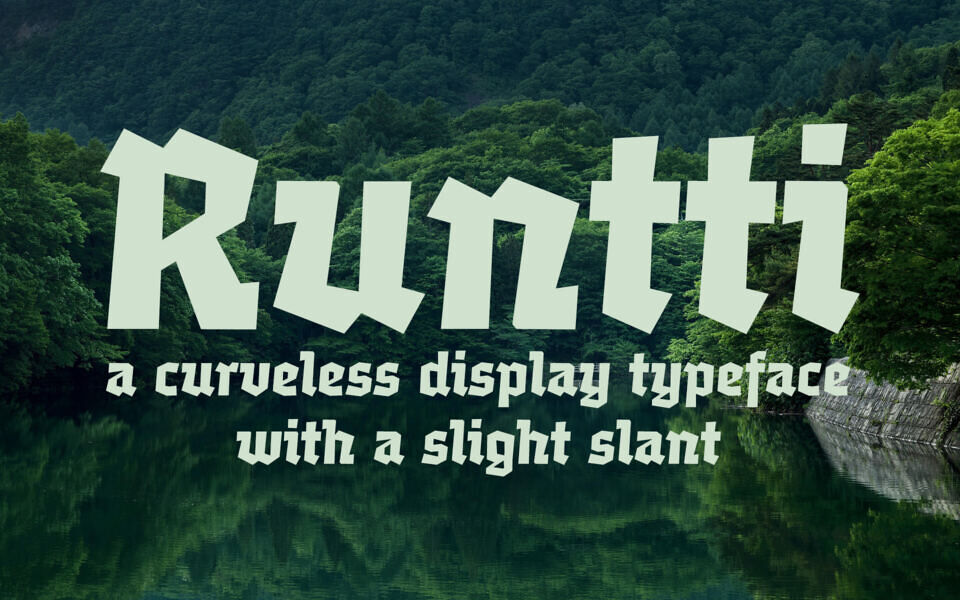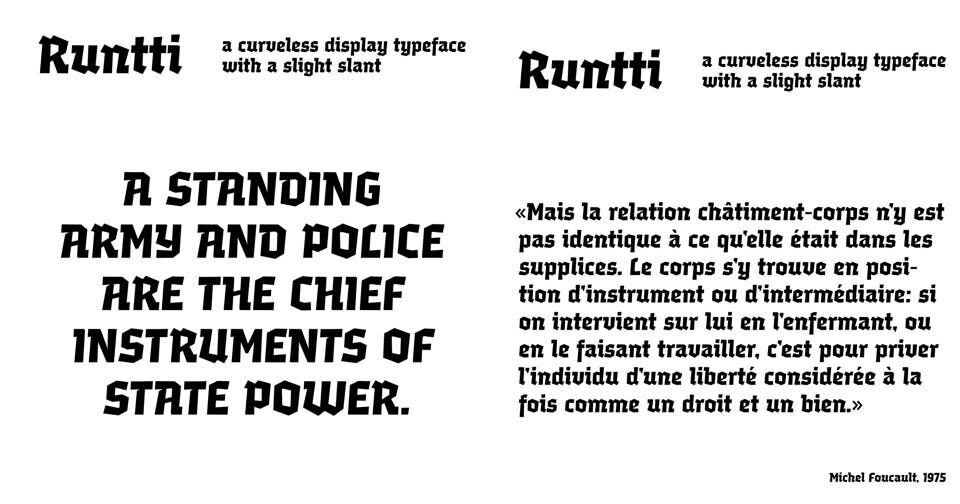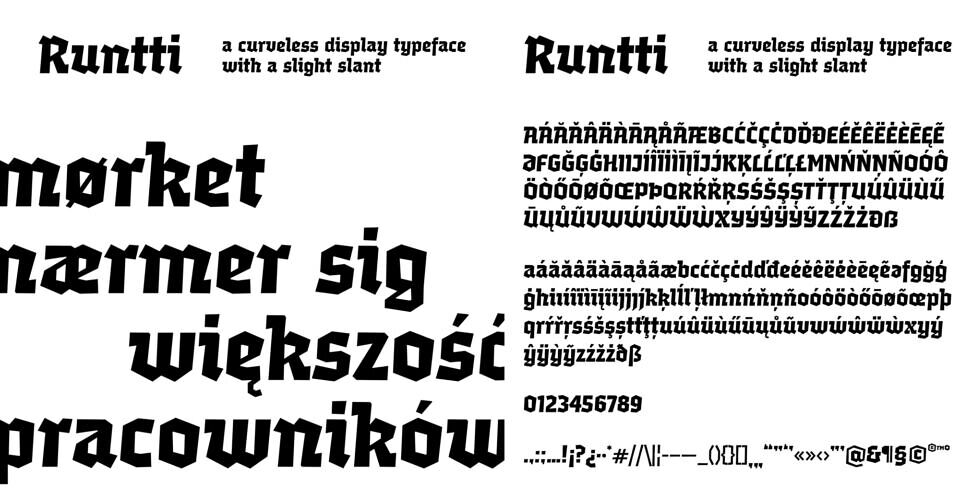
Introducing Runtti, a bold free display font designed to make a statement. With its clean, curveless letterforms and a subtle forward slant, Runtti delivers a dynamic, forward-moving feel that stands out in headlines, logos or posters.
The geometric strokes, sharp angles and stylised characters reinforce a strong, industrial vibe while remaining highly legible. Licensed under the SIL Open Font License (OFL), Runtti offers complete freedom for commercial or personal use.